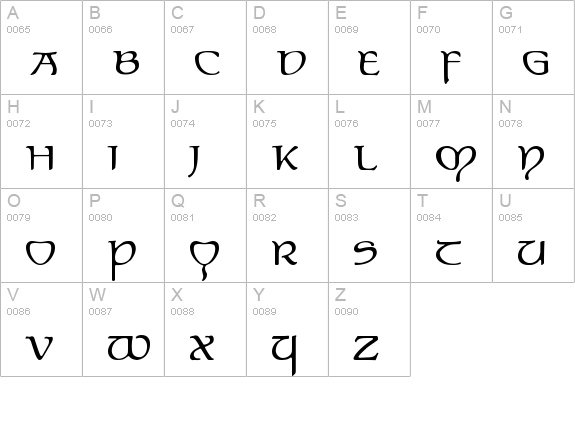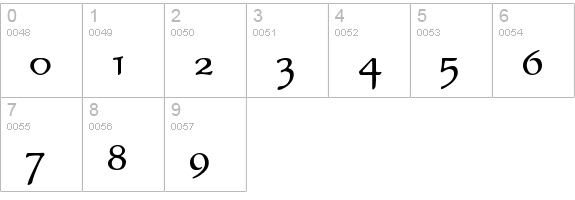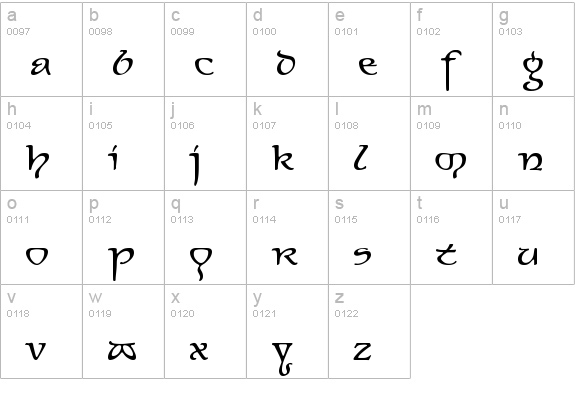
ElvenNormal Font Details
ElvenNormal font is a mesmerizing typeface inspired by the elegance and grace of elven script. Its intricate lines and delicate curves evoke a sense of mystique and magic, making it perfect for fantasy-themed designs and projects. With its timeless appeal and artistic flair, ElvenNormal font captures the essence of a mystical realm where beauty and enchantment reign supreme. The best part? ElvenNormal font is available for free download at FontsMarket.com, allowing you to add a touch of whimsy and sophistication to your creations without any cost. Embrace the enchanting allure of ElvenNormal font and let your imagination soar as you create stunning designs that transport your audience to a world of fantasy and wonder.